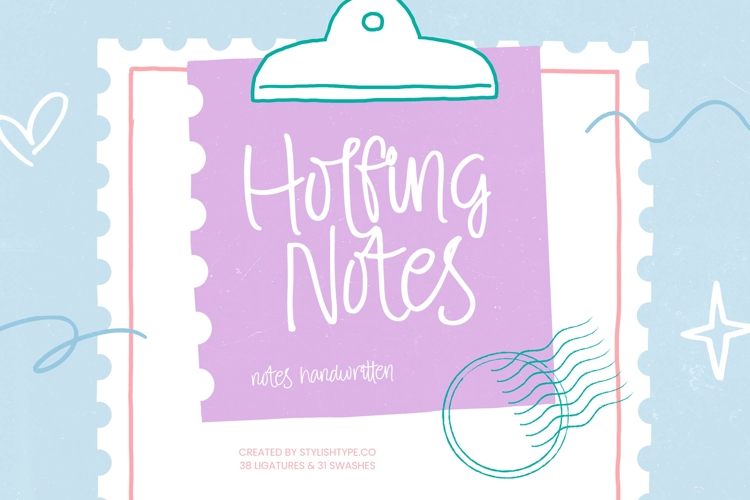
Holfing Notes - Notes Handwritten
Elevate your creative projects with an authentic touch of and charm. Holfing Notes - Notes Handwritten is a masterfully crafted typeface that captures the essence of spontaneous, elegant handwriting. Its tall, slender letterforms and monoline stroke weight provide a clean yet whimsical aesthetic that feels both modern and deeply . Designed to bridge the gap between casual scribbles and professional design, Holfing Notes - Notes Handwritten offers a unique visual rhythm that adds a genuine human element to any digital canvas.
Unlock endless design possibilities with a font built for emotive visual storytelling. This versatile typeface is perfect for lifestyle branding, stationery design, and social media graphics. Whether you are working on boutique packaging, organic skincare labels, or creative editorial layouts, Holfing Notes - Notes Handwritten provides the charm required to captivate your audience instantly. Its natural flow makes it an ideal choice for greeting cards and inspirational quote posters where a warm, inviting feel is paramount.